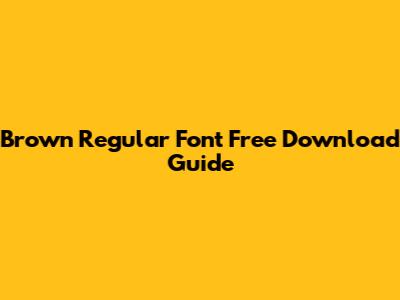
Hey guys! Are you looking for that perfect brown regular font to spice up your design projects? Well, you've come to the right place! In this guide, we'll explore everything you need to know about finding and downloading brown regular fonts for free. We'll dive into why the right font matters, where to find these gems, and how to use them effectively. So, let's jump right in and get your creative juices flowing!
Why the Right Font Matters
Choosing the right font is more than just picking something that looks pretty; it's about conveying the right message and creating a cohesive visual experience. Think of fonts as the voice of your design. A bold, strong font can shout confidence and authority, while a delicate, flowing script can whisper elegance and sophistication. When it comes to a brown regular font, its unique characteristics can add warmth, earthiness, and a touch of vintage charm to your projects.
Setting the Tone
The font you choose sets the tone for your entire design. Imagine you're designing a logo for a coffee shop. A sleek, modern sans-serif might feel too sterile, whereas a brown regular font with slightly rounded edges can evoke a sense of comfort and familiarity. For websites, using the right font can improve readability and user experience, making visitors want to stick around and explore. In print materials, a well-chosen font can make your text stand out and grab attention. Each character, each curve, each weight contributes to the overall feeling your design creates.
Brand Recognition
Consistency in font usage is crucial for brand recognition. Big brands like Coca-Cola and Google have instantly recognizable fonts that play a significant role in their identity. By consistently using a specific brown regular font across your marketing materials, you can reinforce your brand's personality and make it more memorable. This consistency helps customers easily identify your brand, whether they see your logo on a website, a business card, or a social media post. Over time, the font becomes synonymous with your brand, creating a visual shortcut that strengthens your connection with your audience.
Readability and Accessibility
Beyond aesthetics, readability is a primary consideration. A brown regular font that looks stylish but is difficult to read defeats the purpose. Ensure that your chosen font is legible in various sizes and on different devices. Consider factors like x-height, letter spacing, and contrast. Also, think about accessibility. Some fonts are better suited for people with visual impairments. Choose fonts that support a wide range of characters and languages to ensure your message reaches a global audience.
Evoking Emotions
Fonts have the power to evoke emotions and create a mood. A brown regular font, with its warm and earthy tones, can create a feeling of nostalgia, comfort, and authenticity. Using such a font in your designs can make your audience feel more connected and engaged. Think about how different fonts make you feel – a playful, cartoonish font might bring a smile to your face, while a serious, formal font can convey trust and professionalism. By carefully selecting a font that aligns with your brand's values and target audience, you can create a powerful emotional impact.
Font Squirrel
Font Squirrel is another fantastic resource for free fonts. They curate high-quality, legally free fonts that are ready for commercial use. The site features a handy Font Identifier tool, which can help you find a similar font if you have an image of the font you’re looking for. Font Squirrel also offers webfont kits, making it easy to embed fonts into your website with minimal effort. Their selection of brown regular fonts might not be as extensive as Google Fonts, but the quality and licensing assurance make it a worthwhile stop.
DaFont
DaFont is a popular platform with a massive collection of fonts, many of which are free. However, it’s crucial to pay attention to the licensing terms for each font. Some fonts are free for personal use only, while others are free for commercial use. Always double-check the license before using a font in a commercial project to avoid any legal issues. DaFont's interface is user-friendly, allowing you to easily preview and download fonts. While searching for a brown regular font, be sure to filter by category and license to streamline your search.
Creative Fabrica
Creative Fabrica offers a wide range of fonts, graphics, and design resources. While they have a subscription model, they often offer free fonts as part of their promotional deals. Keep an eye on their website for limited-time offers where you can snag some brown regular fonts for free. Creative Fabrica is known for its high-quality resources and easy-to-use platform, making it a great option for both beginners and experienced designers. Their freebies section is constantly updated, so it's worth checking regularly.